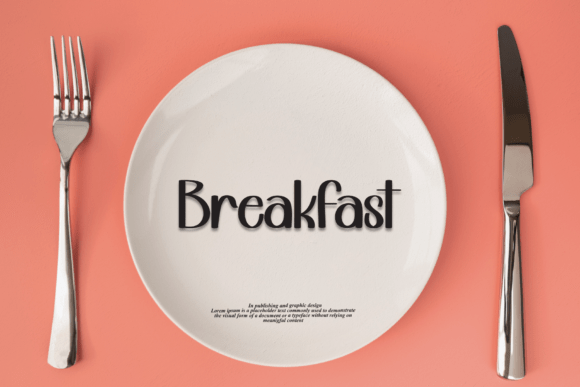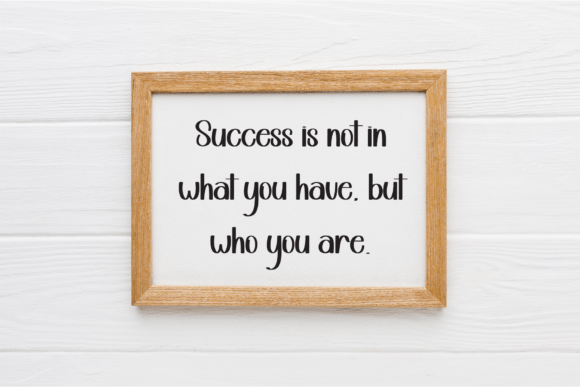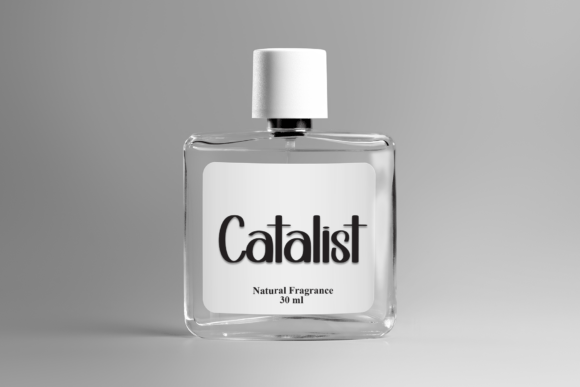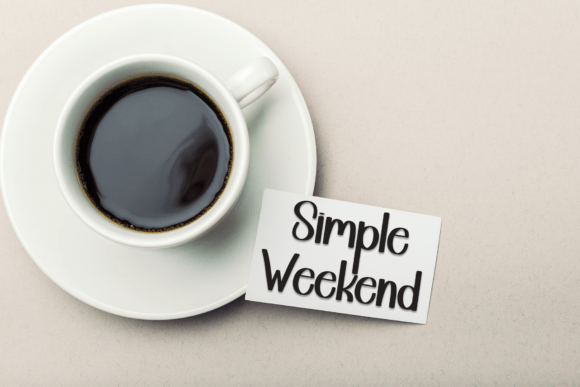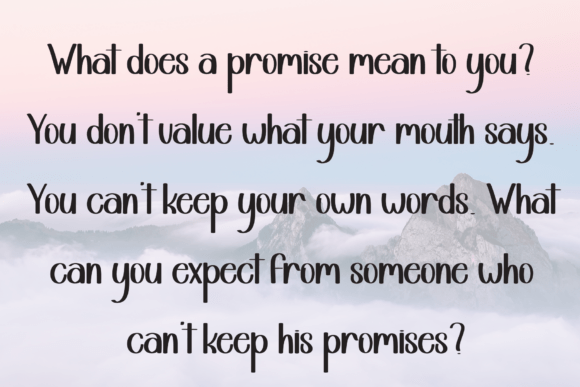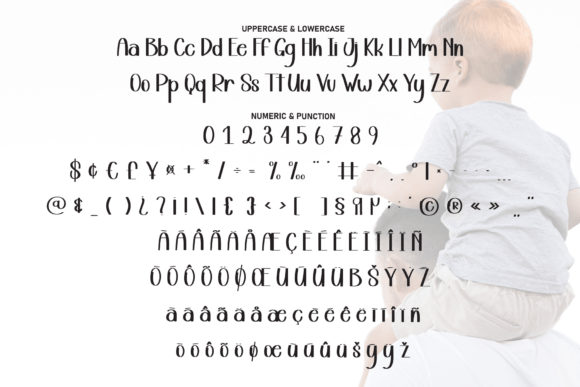
The Magic of Handwritten Touch: Unlocking the Potential of Baby Day Font
Do you remember the excitement of receiving a handmade birthday card as a child? The way the scribbled words and imperfect lines seemed to radiate warmth and love? That same feeling can now be replicated in your designs with the enchanting Baby Day Font. This charming, handwritten display font is infused with an adorable and playful element that brings a delightful touch to any project.
Whether you’re crafting wedding invitations, designing greeting cards, or creating a social media campaign, Baby Day Font is the perfect addition to elevate your designs. Its value lies in its ability to convey a sense of friendliness and approachability, making it an invaluable asset for designers who want to connect with their audience on a deeper level.
Baby Day Font Key Features
- Font Style: A cursive, handwritten font with a playful and childlike feel.
- Unique Characteristics: The font features a mix of uppercase and lowercase letters, with a focus on whimsical and expressive letterforms.
Review of Baby Day Font
Overall, I’m quite pleased with the Baby Day Font. Here are some things that really work well: ✨
- Playful and fun vibe: The font’s design captures the lighthearted and carefree essence of a baby’s day.
- Cursive style: The font’s cursive script is elegant and easy to read, making it perfect for invitations, greeting cards, and other special occasions.
- Customizable: The font comes with various weights and styles, allowing you to tailor it to your specific design needs.
- Limited language support: The font may not support all languages, which could be a concern for designers working with international clients.
- No bold or italic versions: While the font has various weights, it lacks bold and italic versions, which can make it less versatile for certain designs.
- Not suitable for body text: The font’s cursive style makes it less readable for large blocks of text, so it’s best used for titles and headings.
Overall, I’d give the Baby Day Font 4 out of 5 stars. It’s a charming and playful font that’s perfect for special occasions and creative projects. While it has some limitations, it’s still a great addition to any designer’s font collection.
Baby Day Font is commonly used in:
– Baby shower invitations and decorations
– Children’s party materials and favors
– Nursery and children’s bedroom decor
– Educational materials and children’s books
– Any design project that requires a playful and whimsical touch.
To get the most out of Baby Day Font, try the following:
– Use it in combination with bright and pastel colors to create a playful and eye-catching design.
– Experiment with different font sizes and styles to add visual interest to your design.